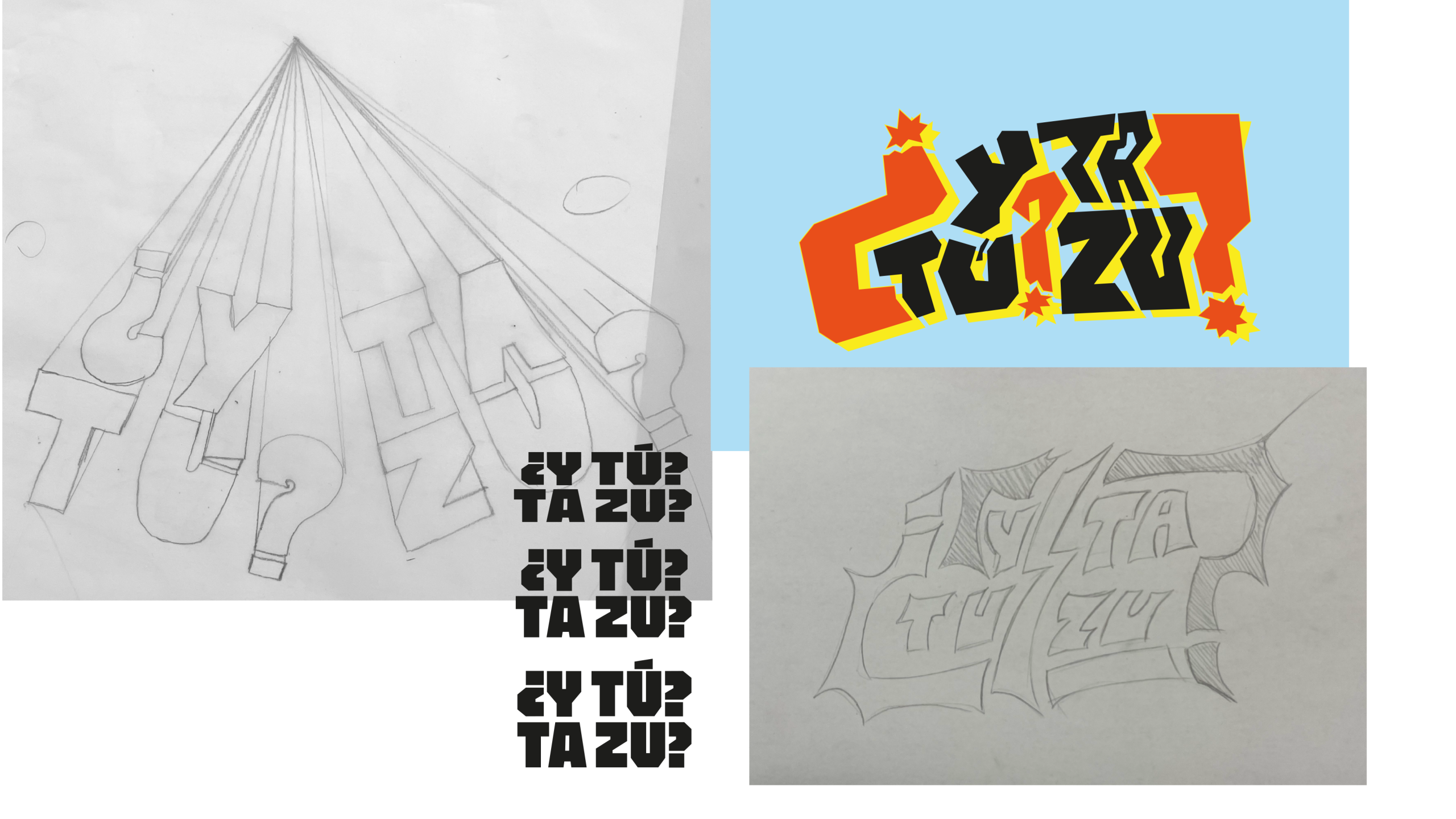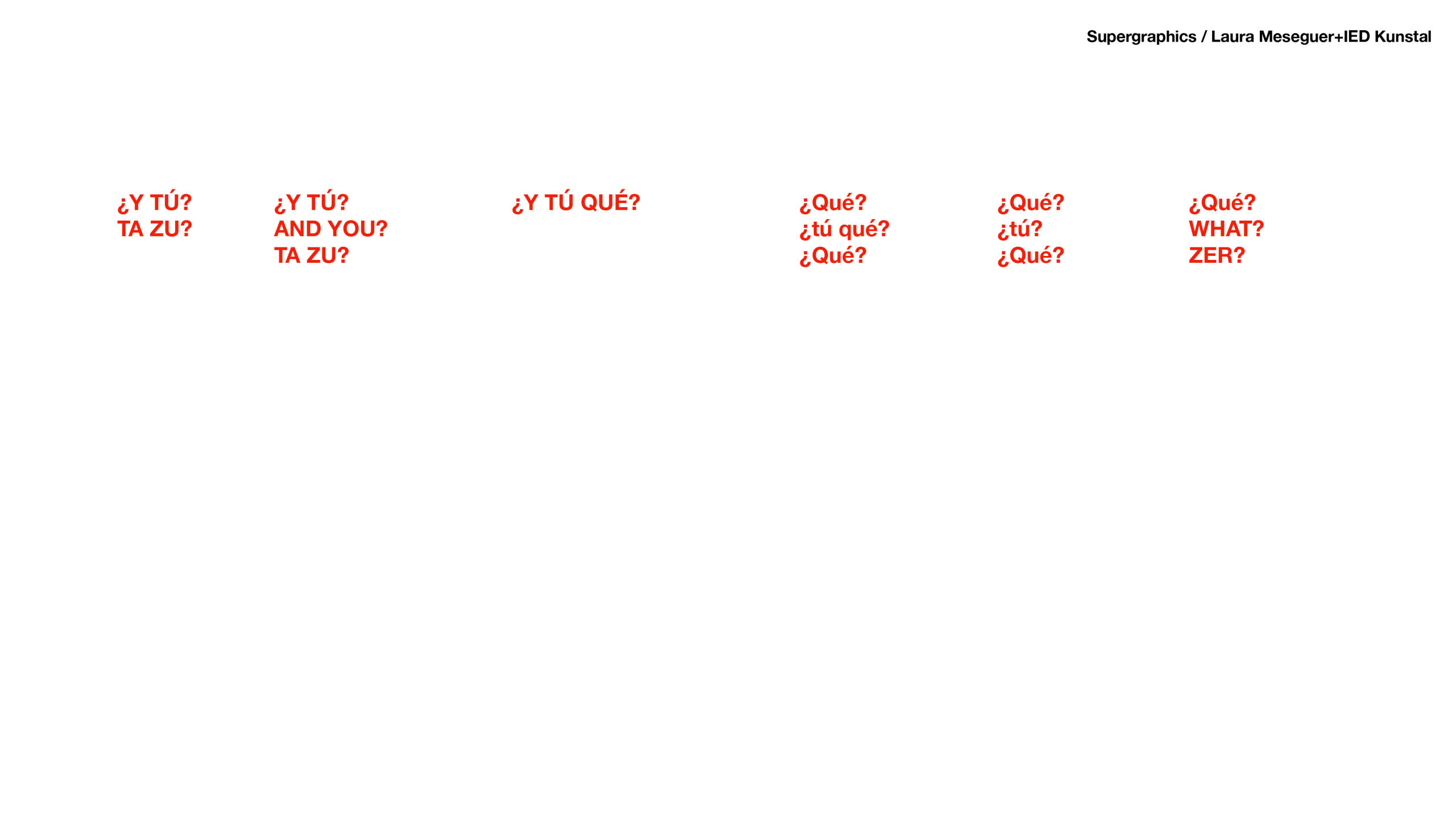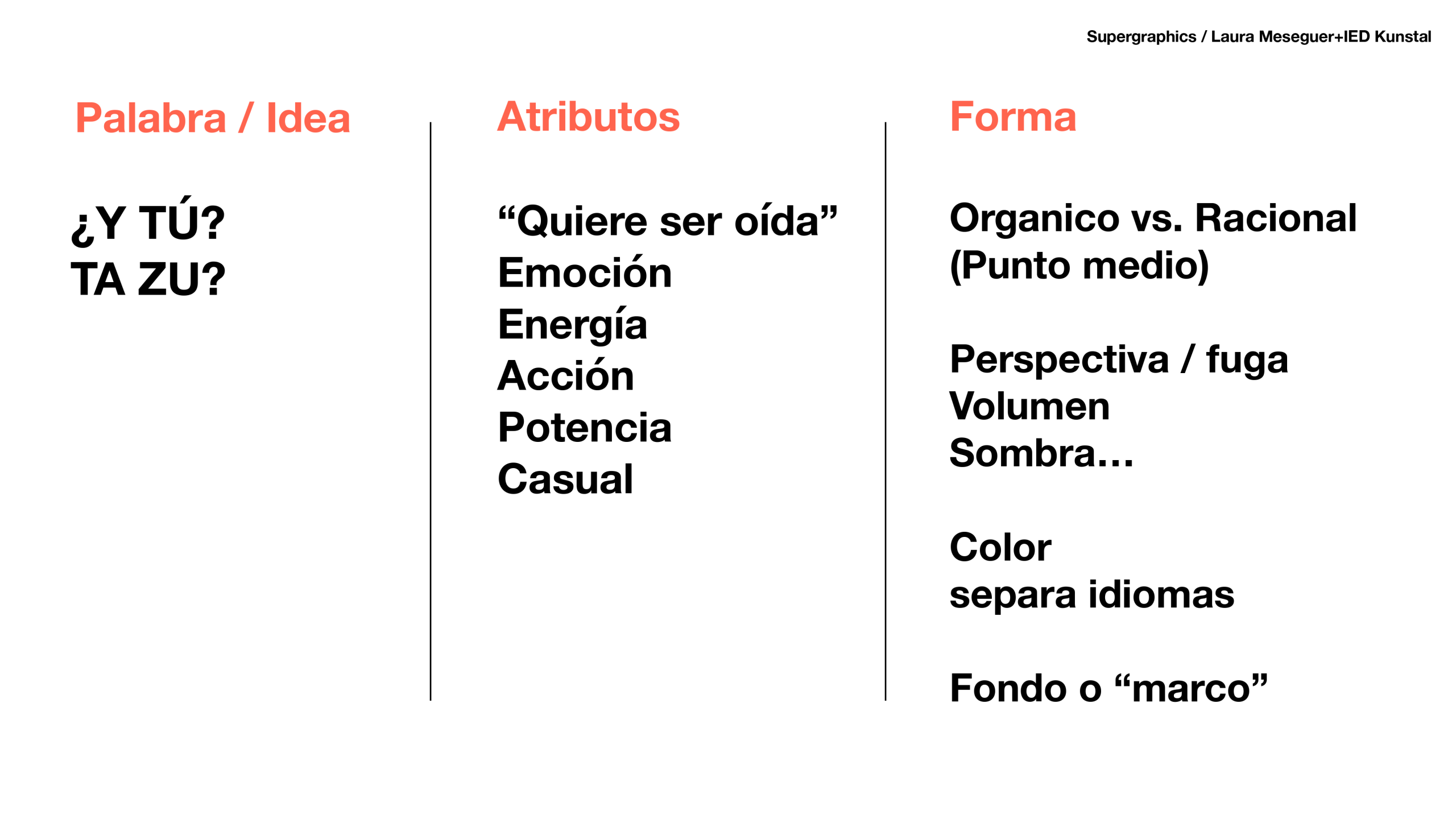
A temporary urban graphic intervention transforms the water tank of the Papelera Building into a monumental artwork that poses a question to the city.
The project, developed by the students of the Official Degree in Graphic Design at IED Kunsthal Bilbao, in collaboration with the Guggenheim Museum Bilbao and Estudios Durero, stems from a dialogue with the work of Barbara Kruger and translates a direct question to the public into the urban space: What is your role in the complexity of the present? Standing 10 meters high and 25 meters in diameter, the piece transforms one of Zorrozaurre’s most distinctive architectural elements, activating new ways for art, design, and the city to converge.
Focused on message, typography and letterforms, the workshop invited participants to experiment with scale, contrast and spatial impact.
1. Location
The intervention transformed the water tank of the Papelera Building – one of the most unique architectural elements of the IED Kunsthal Bilbao campus – into a monumental graphic display. The piece arises from a direct dialogue with the exhibition dedicated to Kruger at the Guggenheim Bilbao, expanding its presence beyond the museum and activating new forms of encounter between art, design, and the city.
2. Methodology
— The 12-hour intensive workshop began with a presentation outlining the co-creation process that participants would follow, culminating in the development of a shared statement, related to:
HOW CREATIVITY INFLUENCES AND IMPROVES YOUR LIFE.
WHAT IS YOUR DREAM CITY LIKE?
HOW DO YOU THINK YOUR GENERATION WILL HELP TRANSFORM THE WORLD WE LIVE IN
— The second phase focused on sketching typographic proposals, exploring structure, hierarchy and expressive potential.
— This was followed by research into colour, scale and the added geometric elements, considering how the message would be seen from the distance.
— The process concluded with final refinements guided by Laura and the preparation of the artworks at IED Kunsthal Bilbao.
3. Execution
Estudios Durero, a creative industry specializing in graphic communication and a leader in large-format digital printing, collaborated in bringing the final piece to life, contributing its experience in large-scale artistic projects and its commitment to sustainable innovation in processes and materials. For this occasion, in fact, they used an innovative material, Pureti Print, a transparent coating applied over the printed surface whose impact is equivalent to the purifying power of trees.
Goals
– To create a typographic mural.
– Define a unique and collective message.
– Define the typographic style appropriate to the message, available space and technique.
– The final result arises from the process and the balance between concept, creativity, time and technique.
Premises or conditioning factors
– Tank Size: 1o meters hight x 25 m Ø
– Canvas Size: 12 m x 7,6 m
– Visible area (frontal) 6,3 m x 6 m
– Collective message reduced to a maximum of 3 words
– 17 students who will share tasks
– Time: 12 for conceptualisation and artwork.
After two days of work, the result was:
Word
¿Y TÚ? TA ZU? (and you in Spanish and Euskera)
It resumes the idea of What do you do to get involved?
Typographic style
– Uppercase or tall letters for optimal legibility.
– “Sans Serif”style to let the verbal message take centre stage.
– Drawn ad hoc in ultra-condensed proportion adapted to occupy the frontal space.
– Colourful composition, to gain impact in space.
– Reinforcement of the meaning by using emphasazing graphic elements around that covered the less visible part of the tank.